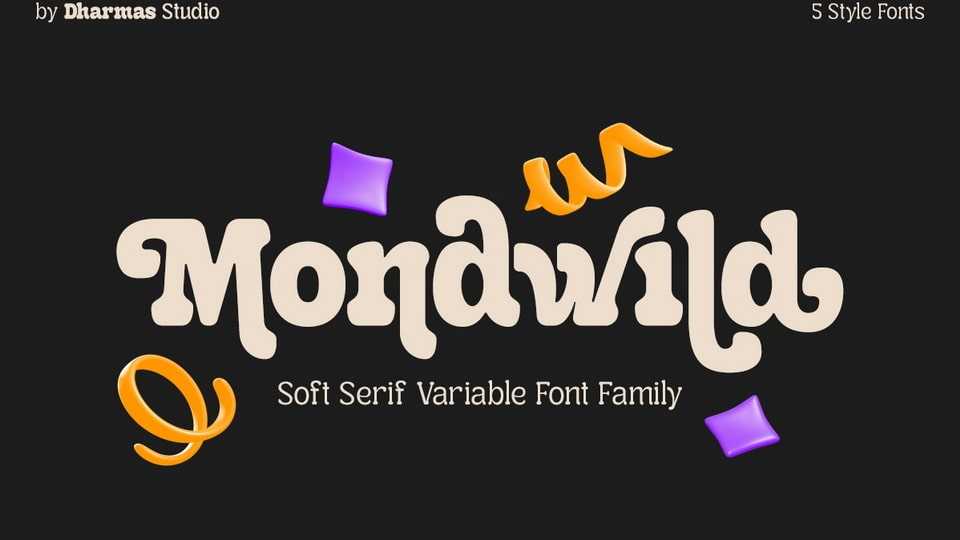
Download Mondwild font, a unique typeface that blends retro charm with modern sensibilities, creating a versatile font that captures both nostalgia and contemporary flair.